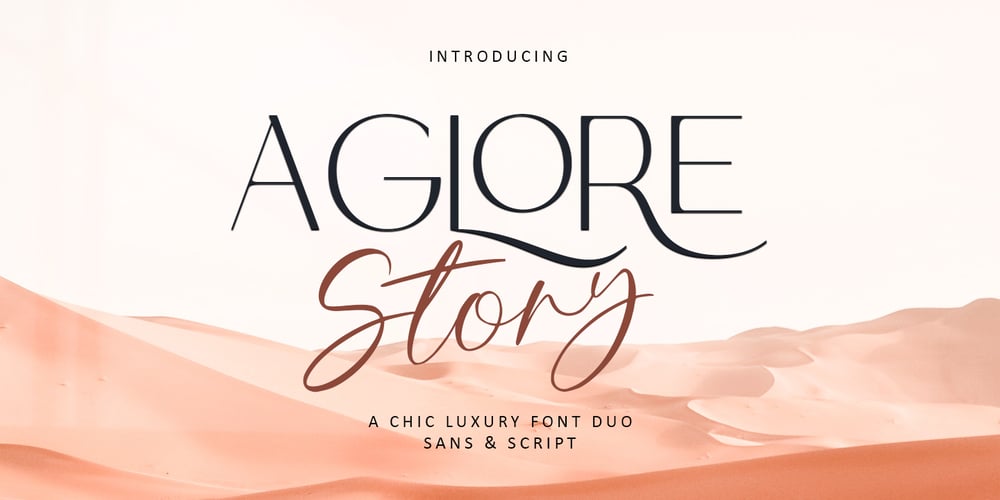
Aglore Story Signature Font Family was designed by Rizki Andika and published by Letterfreshstudio. Aglore Story Signature contains 3 styles and family package options. Aglore Story Signature Duo This professional resource is also powerful because each font has its own magical design. Comes with four versions Regular, Italic, SignatureYou can use it for almost anything like blog headers, posters, wedding elements, t-shirts, clothing, book covers, business cards, greeting cards, branding, invitations and quotes and so on.Feature:UppercaseLowercaseNumberAccent (multilingual character)Thank you for your purchase!